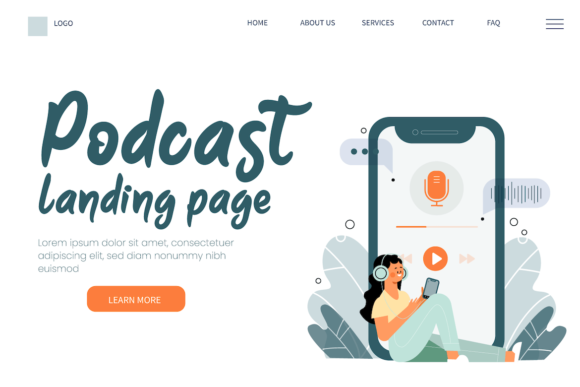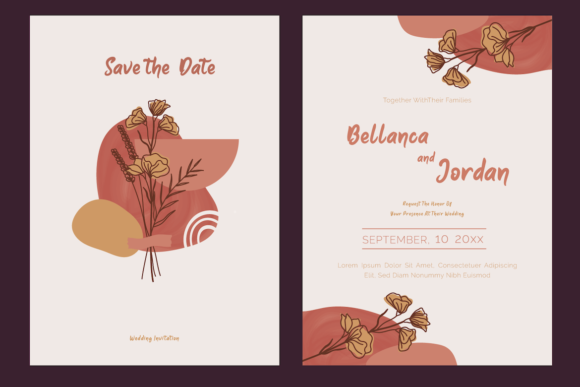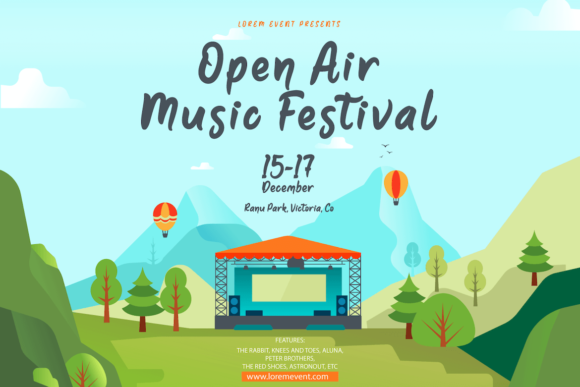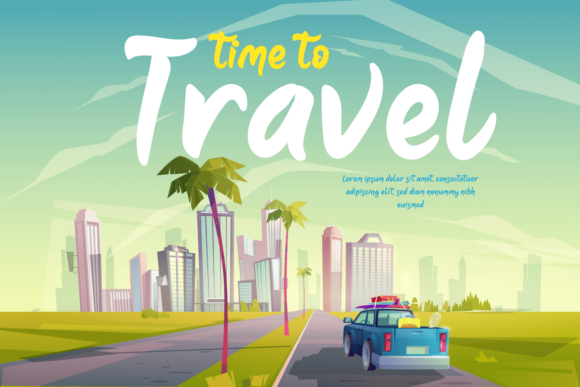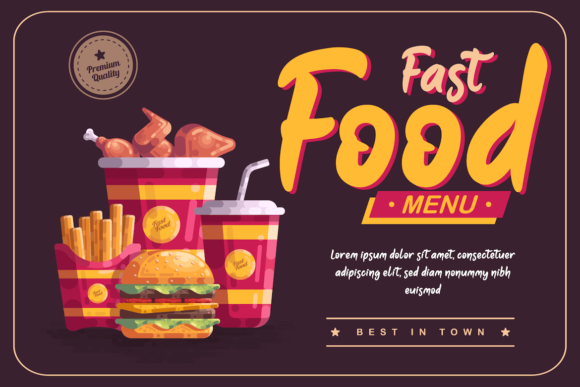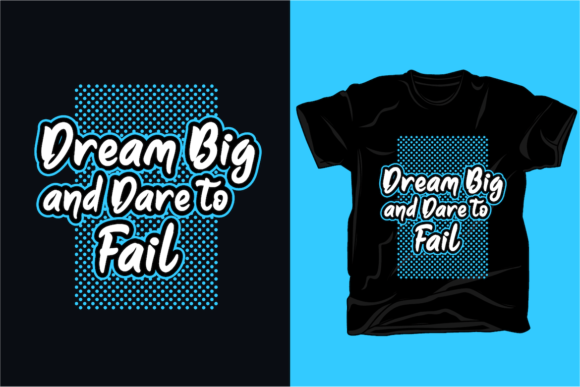
Introduction to Rykes Font
Rykes is a fresh and trendy paint brushed handwritten font.
It has a modern yet whimsical style and it will undoubtedly immerse your designs into a magical world .